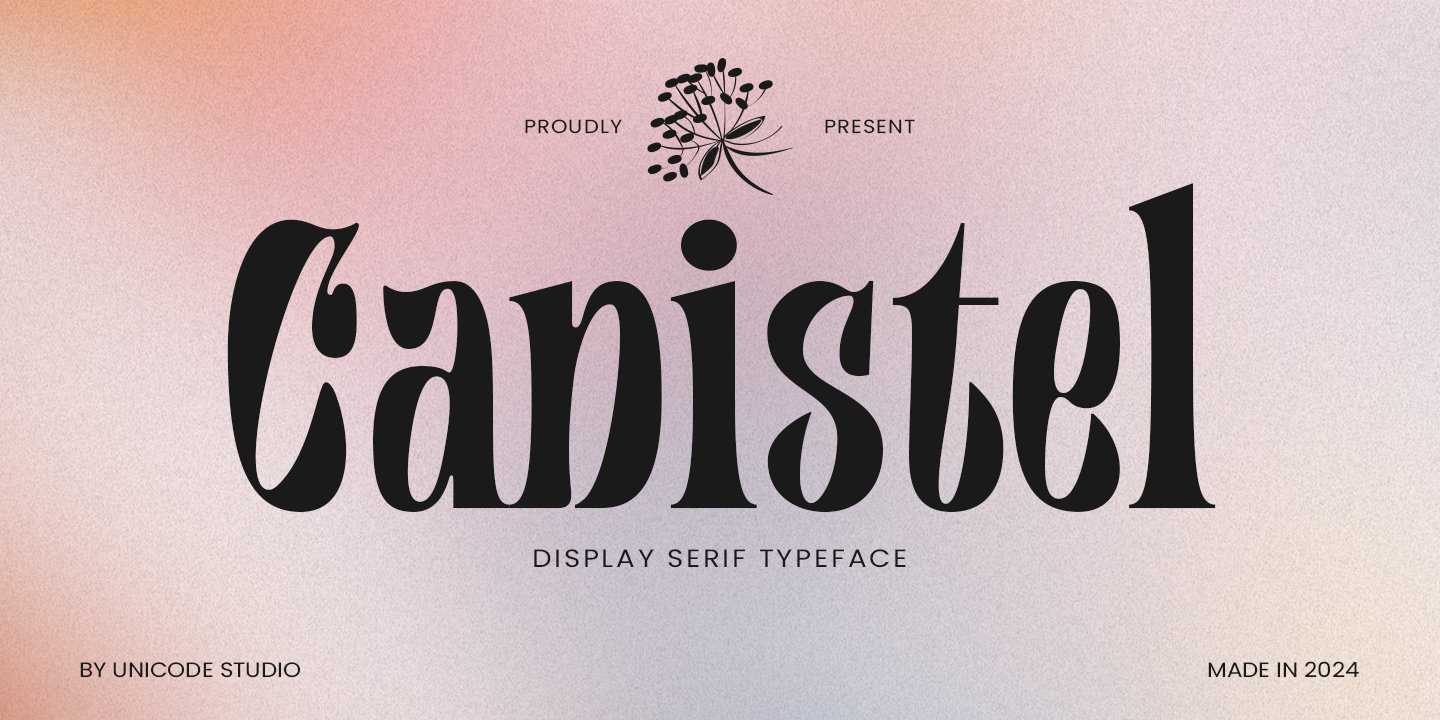
Canistel Font is ideal for tropical fruit packaging, exotic food branding, Caribbean restaurant menus, Latin American cultural events, tropical beverage marketing, organic health food stores, exotic produce markets, tropical vacation promotions, authentic Caribbean cuisine, natural smoothie brands, tropical farm signage, and vibrant tropical lifestyle communications.
This font is exciting because it captures the sweet exotic appeal and golden tropical warmth of the canistel fruit, featuring warmly inviting letterforms that glow with the same sunny disposition and natural sweetness found in this delicious Caribbean treasure that tastes like creamy egg custard kissed by tropical sunshine and ocean breezes. The gracefully organic character design embodies both the natural abundance of tropical paradise and the authentic cultural richness of Caribbean culinary traditions, creating typography that feels both exotically appealing and genuinely welcoming. Each letter radiates the kind of tropical warmth and natural sweetness that transforms ordinary text into invitations to experience the exotic flavors and sunny lifestyle of Caribbean culture.
The Canistel Font family includes regular weight with complete character sets featuring tropical-inspired numerals, warm punctuation marks, and decorative elements reminiscent of tropical fruits, Caribbean patterns, ocean waves, and sunny island motifs. Advanced versions may offer additional stylistic variants with enhanced tropical effects, alternate characters that create flowing organic connections, and exotic ornaments that celebrate the beauty and flavor of Caribbean tropical culture and natural abundance.
Whether you're developing tropical food branding, creating Caribbean cultural materials, or designing exotic lifestyle content, Canistel Font Free Download provides the exotic warmth and tropical authenticity your project needs to transport audiences to sunny Caribbean shores where life moves at island pace and every meal celebrates the natural abundance of tropical paradise. This typeface transforms ordinary text into tropical invitations that capture the sweet essence of Caribbean culture and the irresistible appeal of exotic tropical experiences. The font's tropical character makes it perfect for brands that celebrate Caribbean heritage and tropical lifestyle. Tropical food enthusiasts and Caribbean culture lovers will appreciate how this font brings authentic island warmth to their work with its genuinely tropical and naturally sweet character that embodies the spirit of Caribbean paradise.